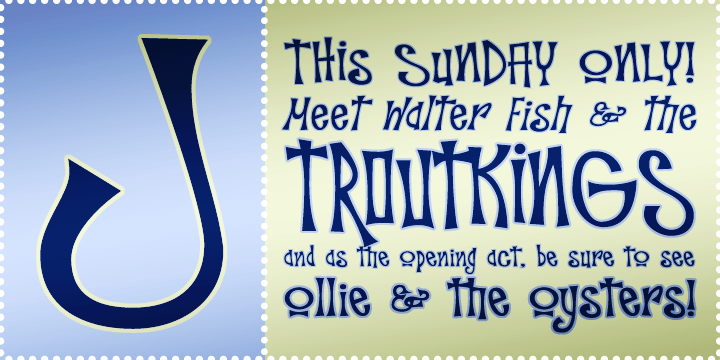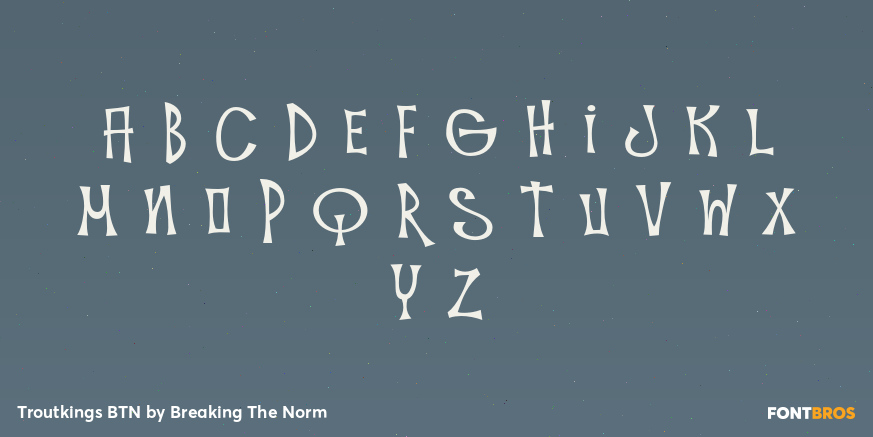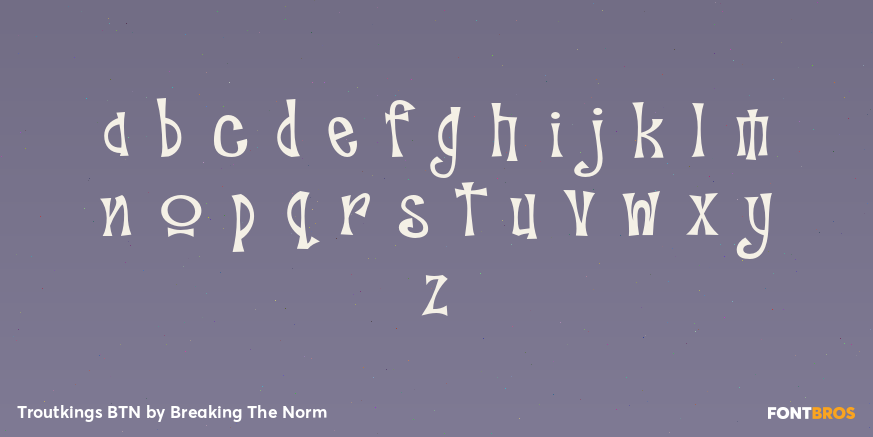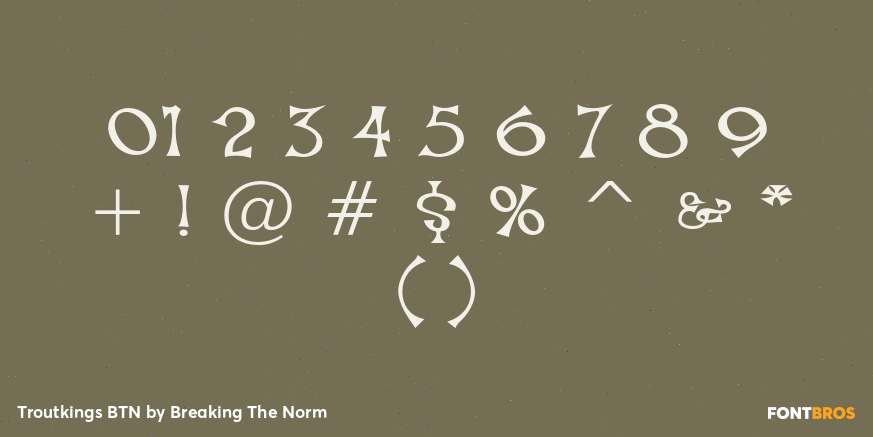
Troutkings BTN
Font Family by Breaking The Norm
Troutkings BTN is a quirky display family that blends graffiti influence with a retro throwback attitude. Its lively construction creates a visual bounce that feels energetic, playful, and full of personality, making it well suited for posters, branding, packaging, signage, editorial headlines, and alternative display work. The family carries an offbeat charm that feels expressive without becoming chaotic, helping it stand out in designs that want movement and character. With Light, Regular, Oblique, Light Oblique, and Condensed styles, Troutkings BTN offers flexible options for building distinctive typography with a fun vintage-meets-street flavor.